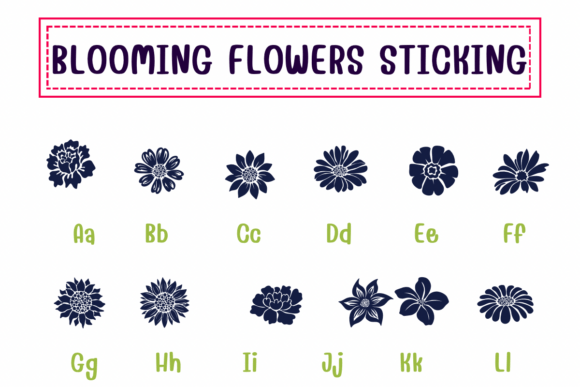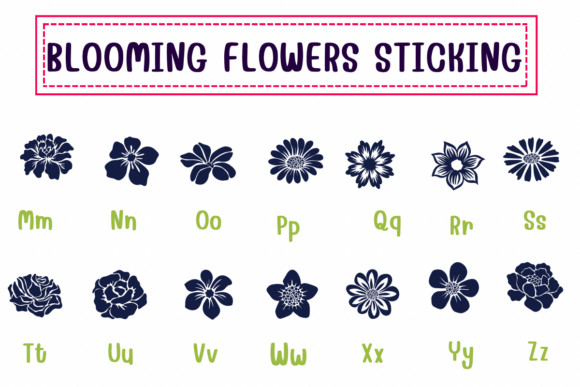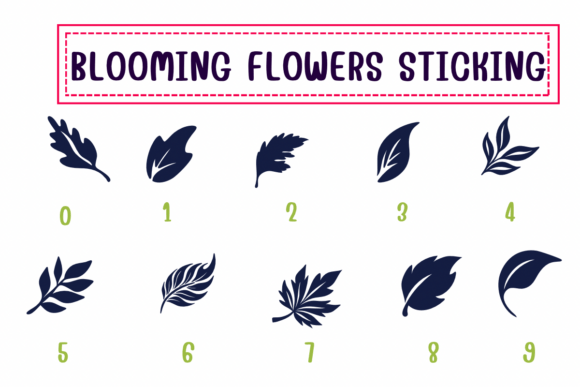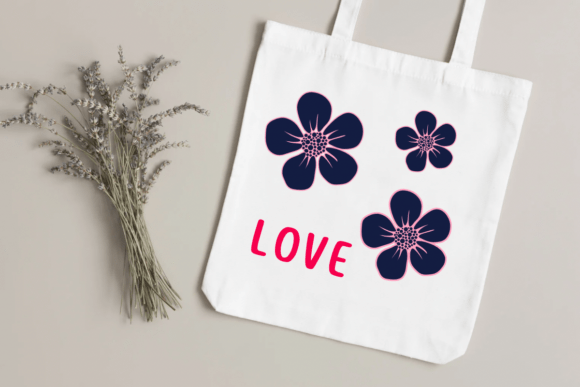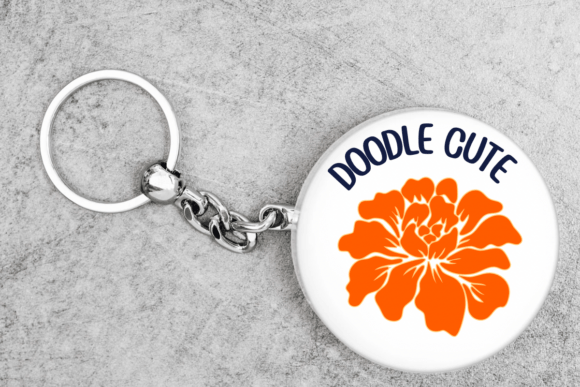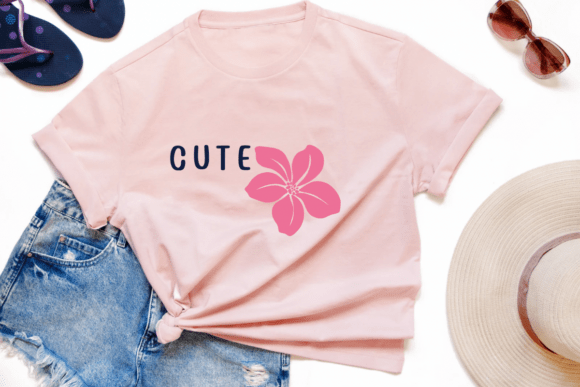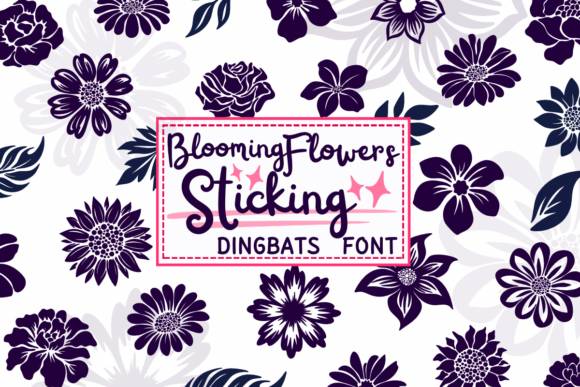
Blooming Flowers Sticking Font: A Delightful Dingbats Font for Creative Minds
Blooming Flowers Sticking is a lovely dingbats font with a botanical theme that is sure to add a touch of elegance and whimsy to your creative projects. This charming font features beautiful, intricate illustrations of flowers and foliage that will bring a sense of joy and playfulness to your designs. In this article, we’ll explore the features and benefits of Blooming Flowers Sticking, and show you how to make the most of this delightful font.
What is Blooming Flowers Sticking?
Blooming Flowers Sticking is a dingbats font, which means it’s a type of font that features symbols, illustrations, and ornaments rather than traditional letterforms. This font is specifically designed with a botanical theme, featuring stunning illustrations of flowers, leaves, and other foliage. The result is a beautiful and versatile font that can be used for a wide range of creative projects, from crafting and scrapbooking to graphic design and digital art.
Key Features of Blooming Flowers Sticking
• Botanical theme: The font features a stunning collection of flower and foliage illustrations, perfect for projects with a garden or nature-inspired theme.
• Dingbats style: The font is designed as a dingbats font, making it easy to use and versatile for a wide range of creative projects.
• Elegant and whimsical: The illustrations are both elegant and playful, making this font perfect for projects that require a touch of sophistication and fun.
Benefits of Using Blooming Flowers Sticking
So why should you choose Blooming Flowers Sticking for your next creative project? Here are just a few benefits of using this lovely font:
• Add a personal touch: With Blooming Flowers Sticking, you can add a personal touch to your projects and make them truly unique.
• Save time: The font is easy to use and comes with a wide range of illustrations, saving you time and effort in your design process.
• Inspire creativity: The beautiful illustrations in Blooming Flowers Sticking are sure to inspire your creativity and help you come up with fresh ideas.
• Perfect for seasonal projects: The botanical theme makes this font perfect for seasonal projects, such as spring or summer-themed crafts and designs.
Ideas for Using Blooming Flowers Sticking
Blooming Flowers Sticking is a versatile font that can be used for a wide range of creative projects. Here are a few ideas to get you started:
• Scrapbooking: Add a touch of elegance to your scrapbook pages with Blooming Flowers Sticking.
• Crafting: Use the font to create beautiful and unique labels, cards, and other craft projects.
• Graphic design: Add a botanical theme to your graphic design projects, such as brochures, posters, and flyers.
• Digital art: Use Blooming Flowers Sticking to create stunning digital art pieces, such as illustrations and collages.
Blooming Flowers Sticking is a lovely dingbats font with a botanical theme that is sure to add a touch of elegance and whimsy to your creative projects. With its easy-to-use design, beautiful illustrations, and versatile style, this font is perfect for designers and crafters of all skill levels. Whether you’re working on a scrapbooking project, crafting, graphic design, or digital art, Blooming Flowers Sticking is a great choice. So why not give it a try and see the beautiful results for yourself?